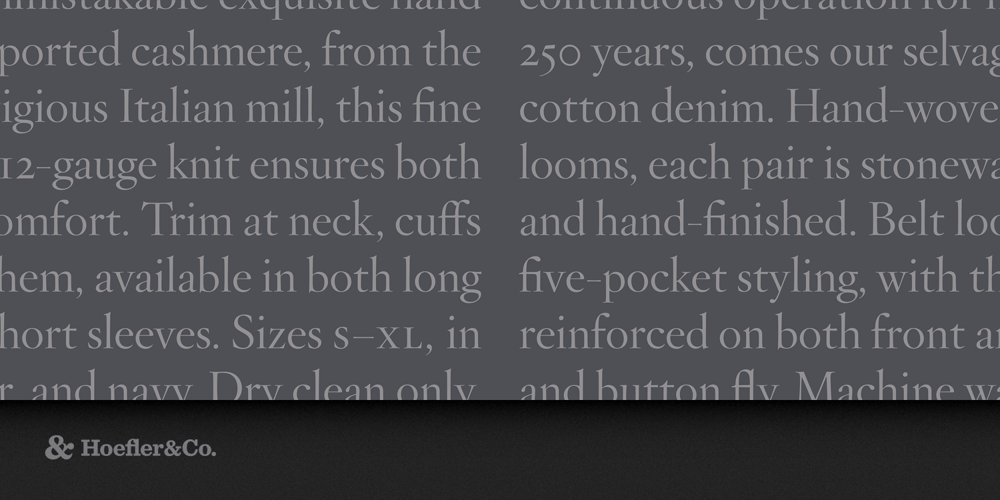
Hoefler Titling Font Family was designed by Jonathan Hoefler and published by Hoefler & Co.. Hoefler Titling contains 6 styles and family package options. A family of energetic display faces in the baroque style, Hoefler Titling is the display-size counterpart to Hoefler Text. The Hoefler Titling typeface was designed by Jonathan Hoefler in 1994. A family of elegant display faces in the baroque style, Hoefler Titling shares many mannerisms with the various ‘Garamond’ typefaces of the early twentieth century — nearly all of which revive not the types of sixteenth century punchcutter Claude Garamond, but those of seventeenth century typefounder Jean Jannon. Hoefler Titling was created for House & Garden magazine, in whose pages the typeface first appeared in 1996. From the desk of the designer: As its name suggests, Hoefler Text was designed to be used in text sizes. For Hoefler Titling, this display-size cousin, we decided not to adapt Hoefler Text’s design, but instead to create an entirely new family of typefaces that would be sympathetic with Hoefler Text without aping its mannerisms. This sort of equivocal relationship between text and display faces has a long tradition in typefounding: excellent modern examples are Hermann Zapf’s Palatino (1948) and Michelangelo (1950), and Matthew Carter’s Galliard (1978) and Mantinia (1993). Like Hoefler Text, the style of Hoefler Titling reveals its designer’s affection for two beloved text faces — fonts that coincidentally share the same unusual secret. One inspiration for Hoefler Text’s roman was Janson Text (1932), Chauncey Griffith’s sober text face that revives the types thought to be made by Dutch punchcutter Anton Janson (1620-1687), but later discovered to be the work of the Hungarian Miklós Kis (1650-1702). The italics of both Hoefler Text and Hoefler Titling show strains of Morris Fuller Benton’s Garamond No. 3 (1936), which is modeled on typefaces originally indentified with Claude Garamond (c. 1490-1561), but later proven to be the work of Jean Jannon (1580-1658). With this in mind, Hoefler Titling is more a gloss on the baroque style than the revival of any one historical typeface, and as such it freely explores territory unknown to either typefounder. The family includes three weights, each outfitted with romans, italics, small caps and swashes.